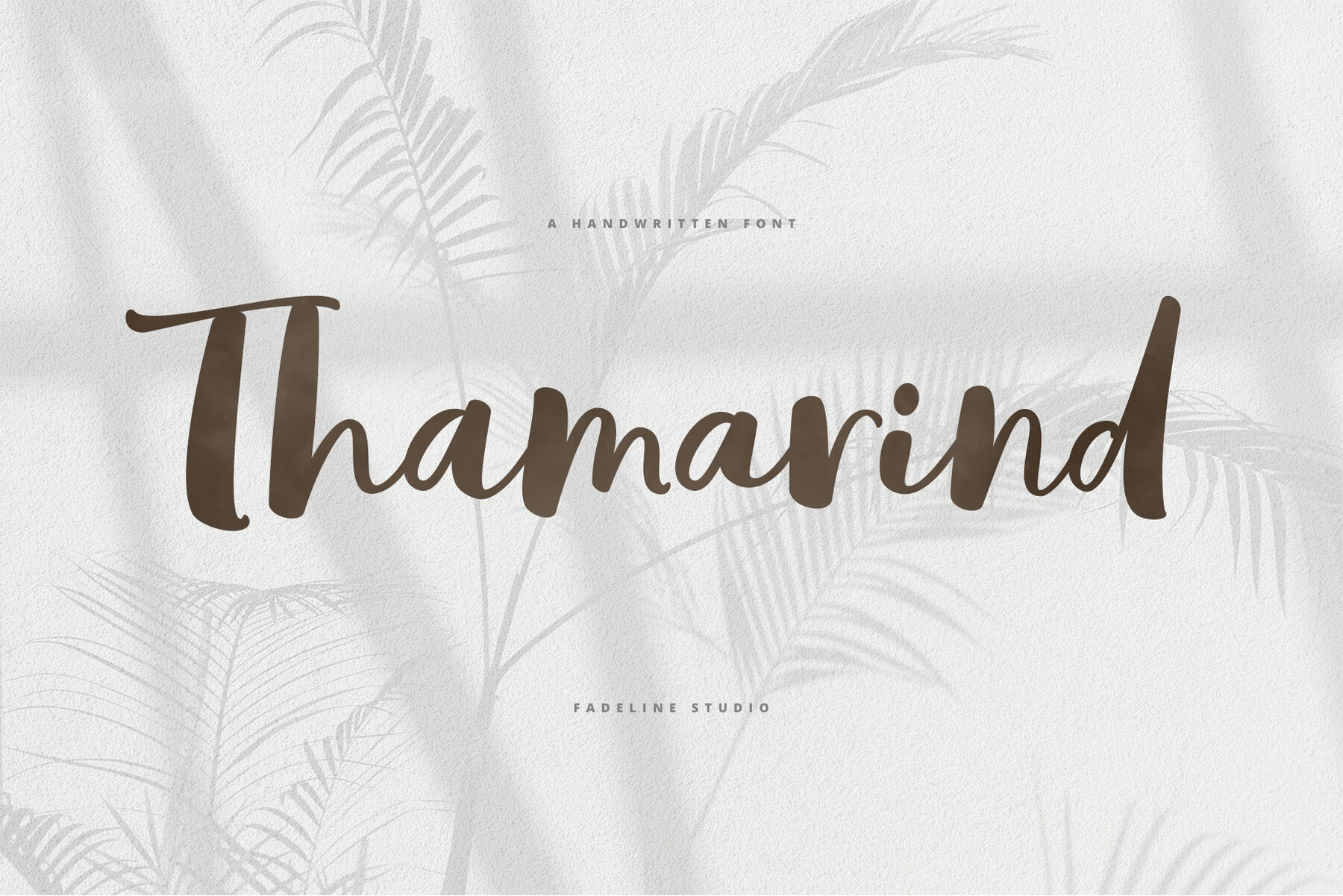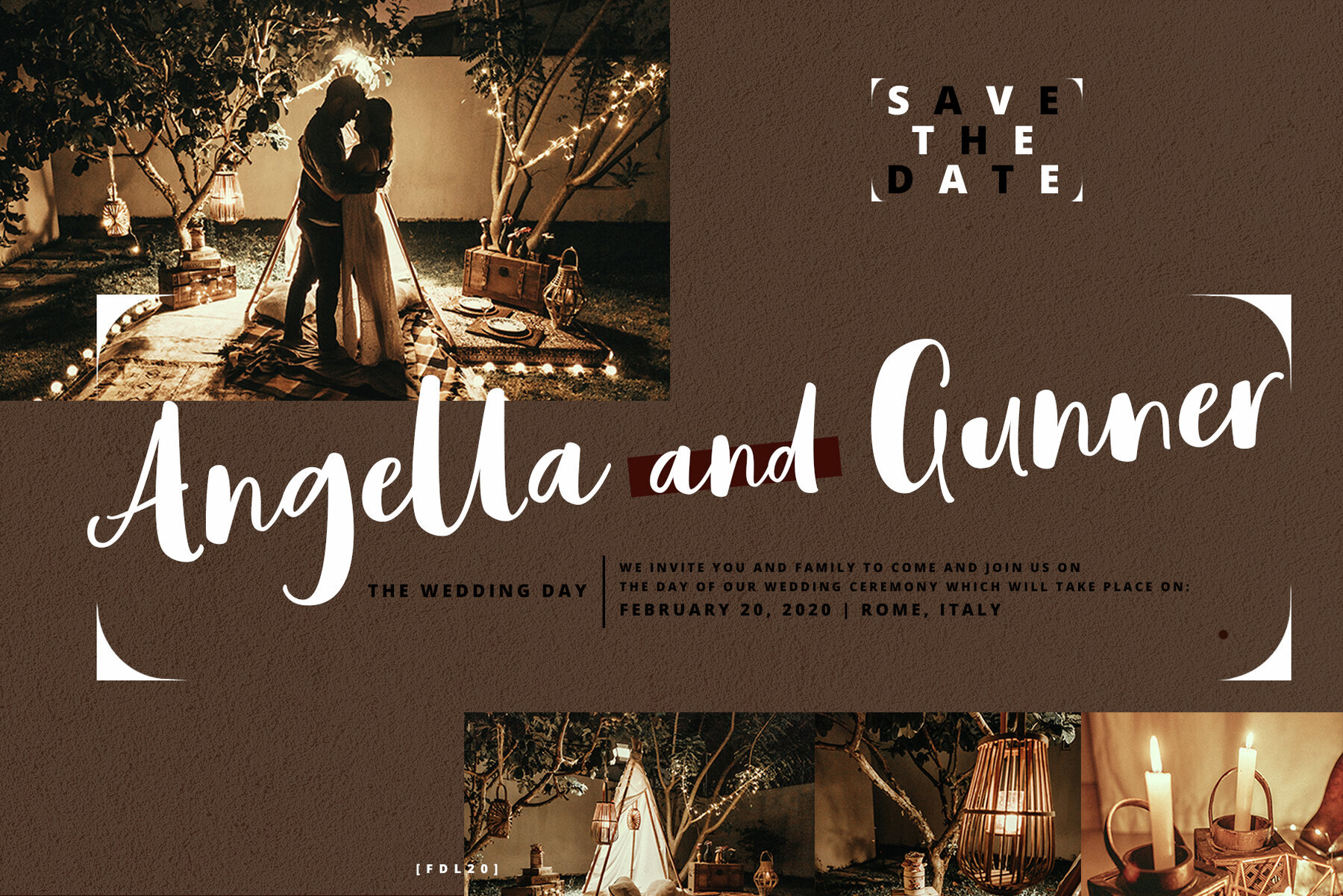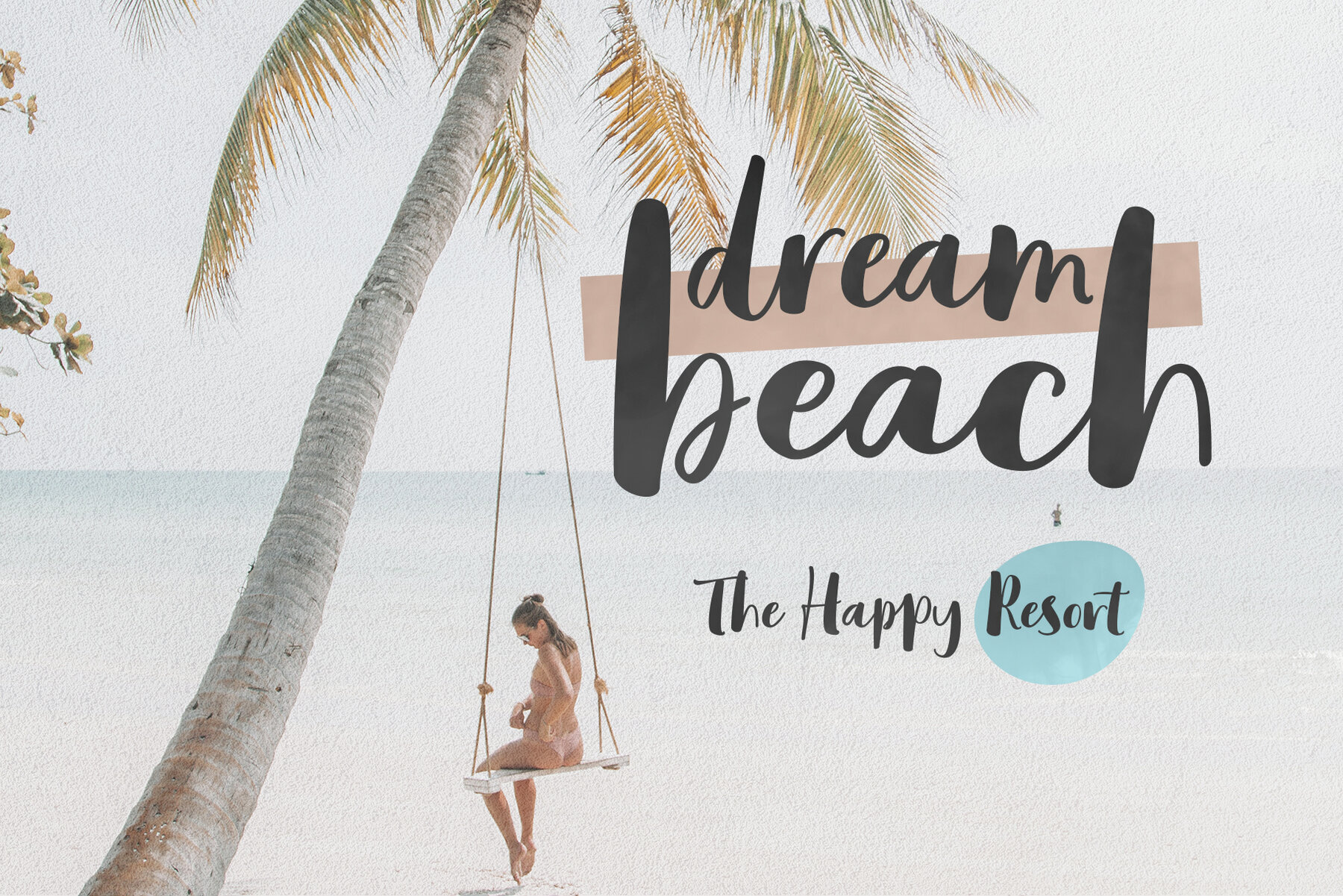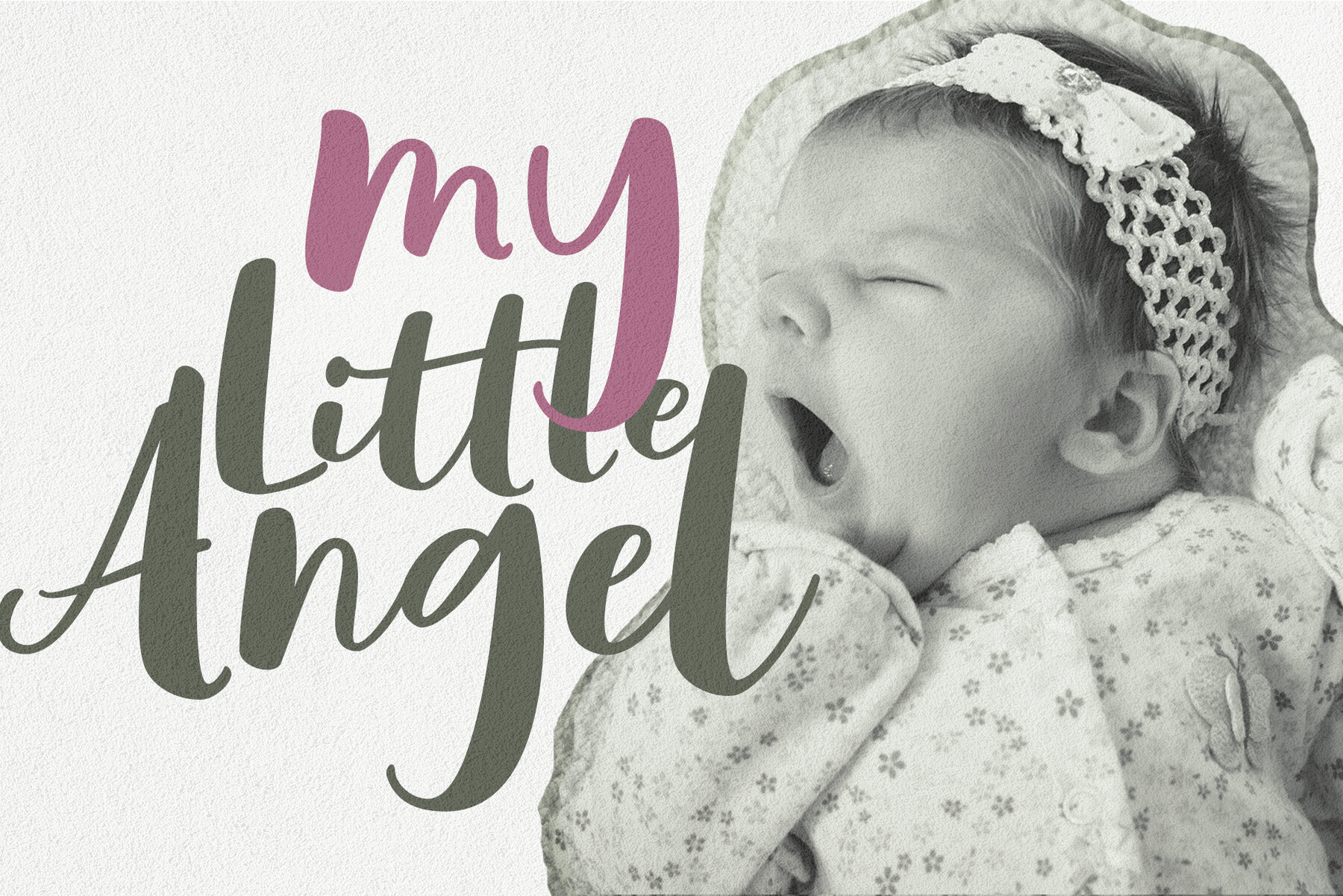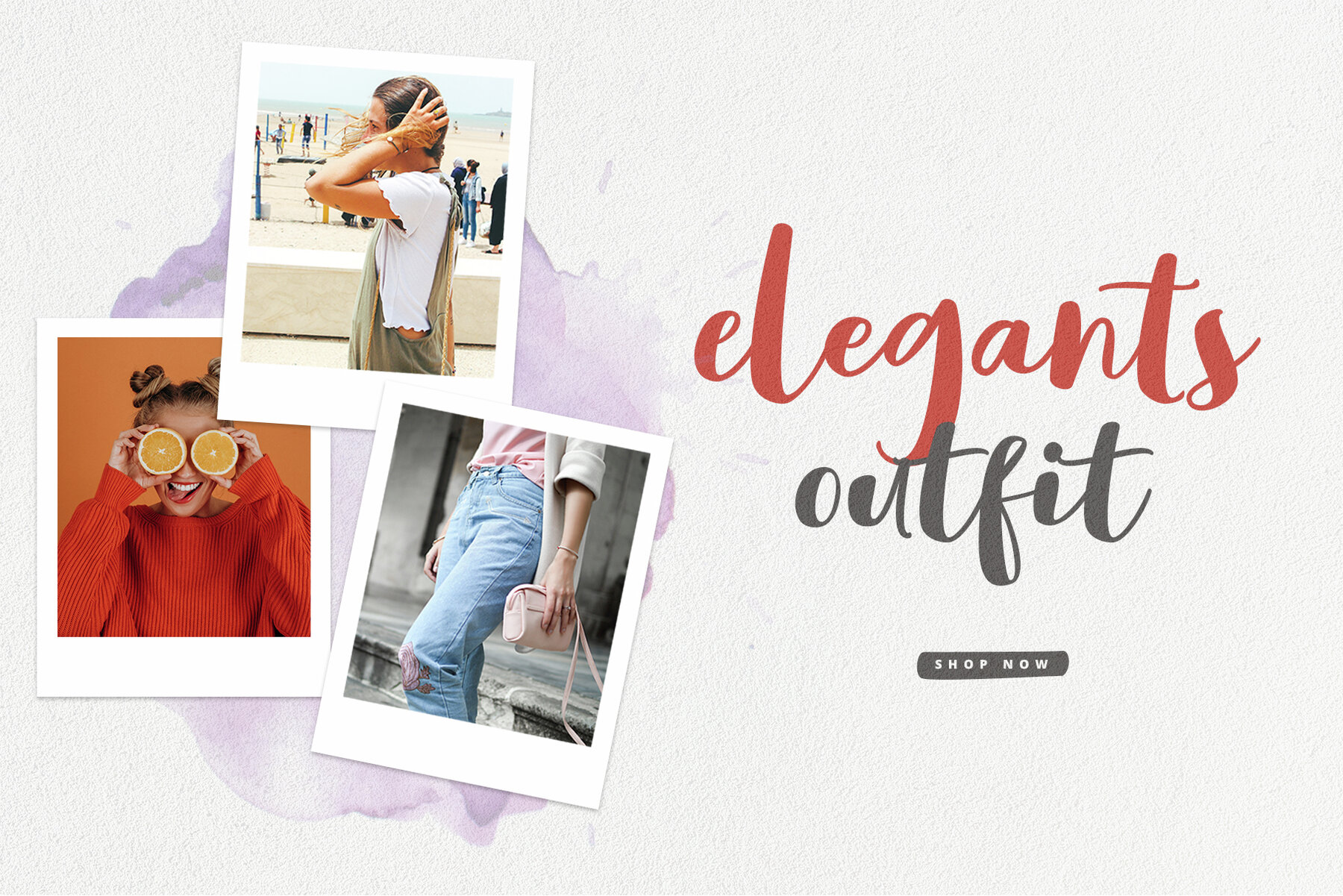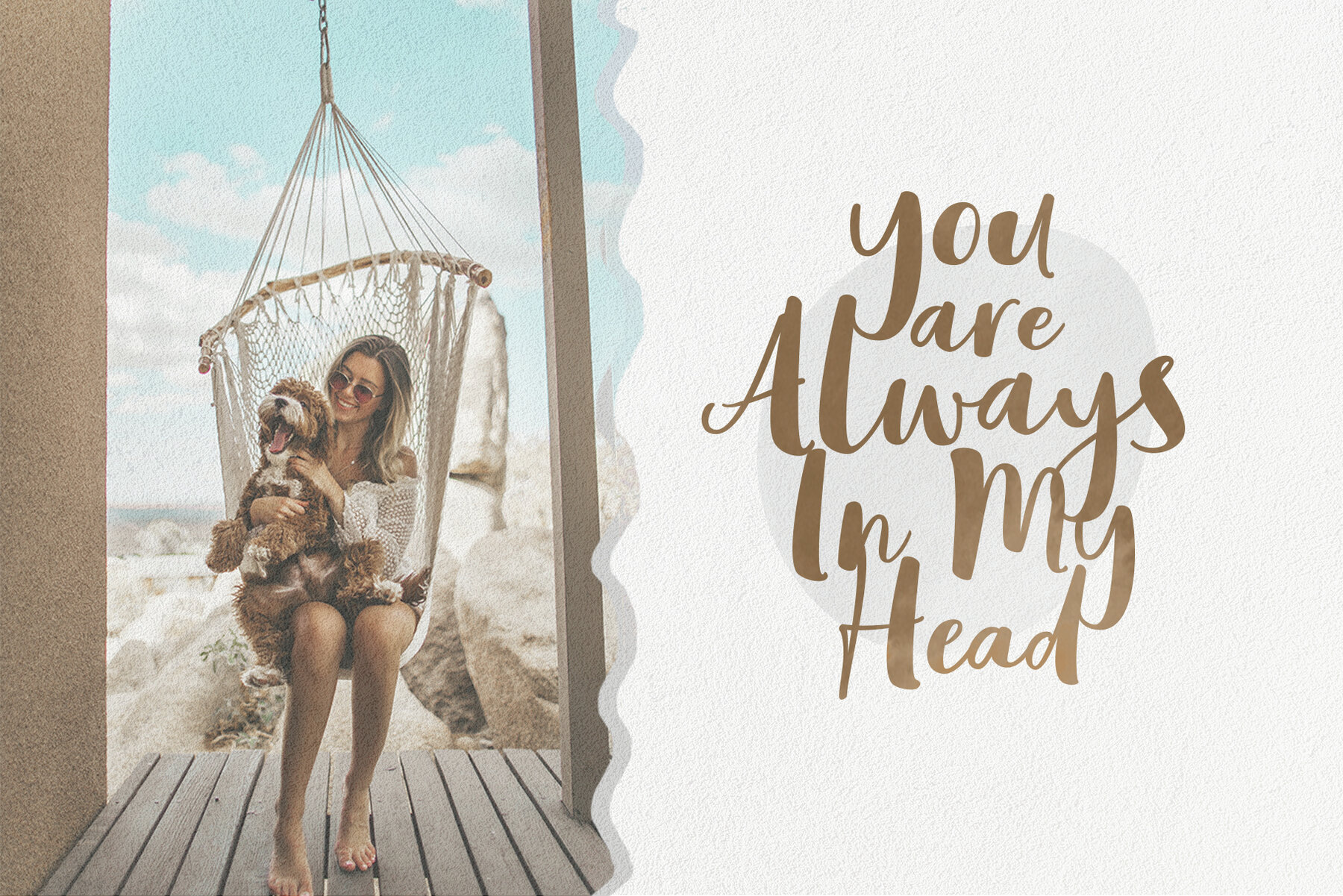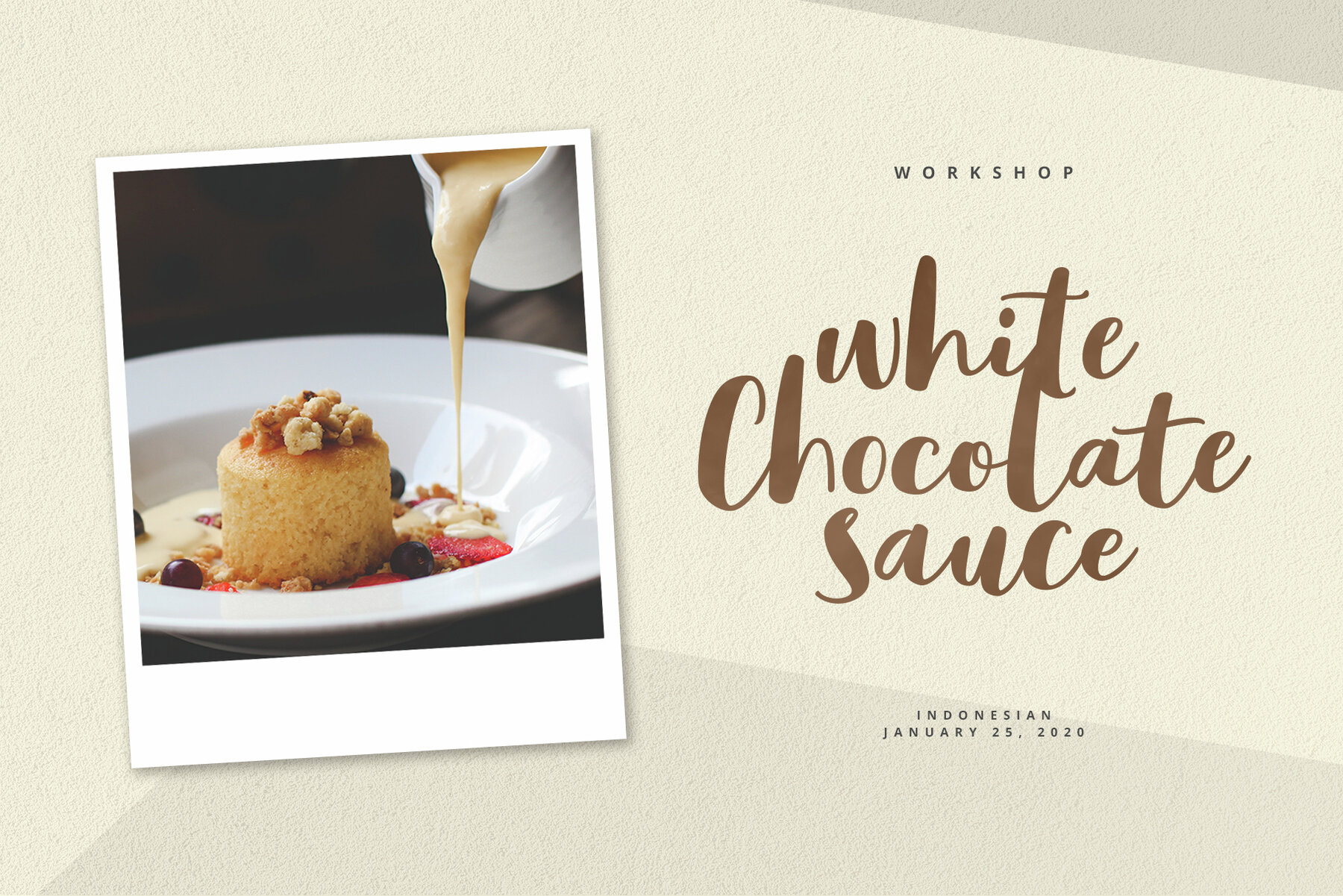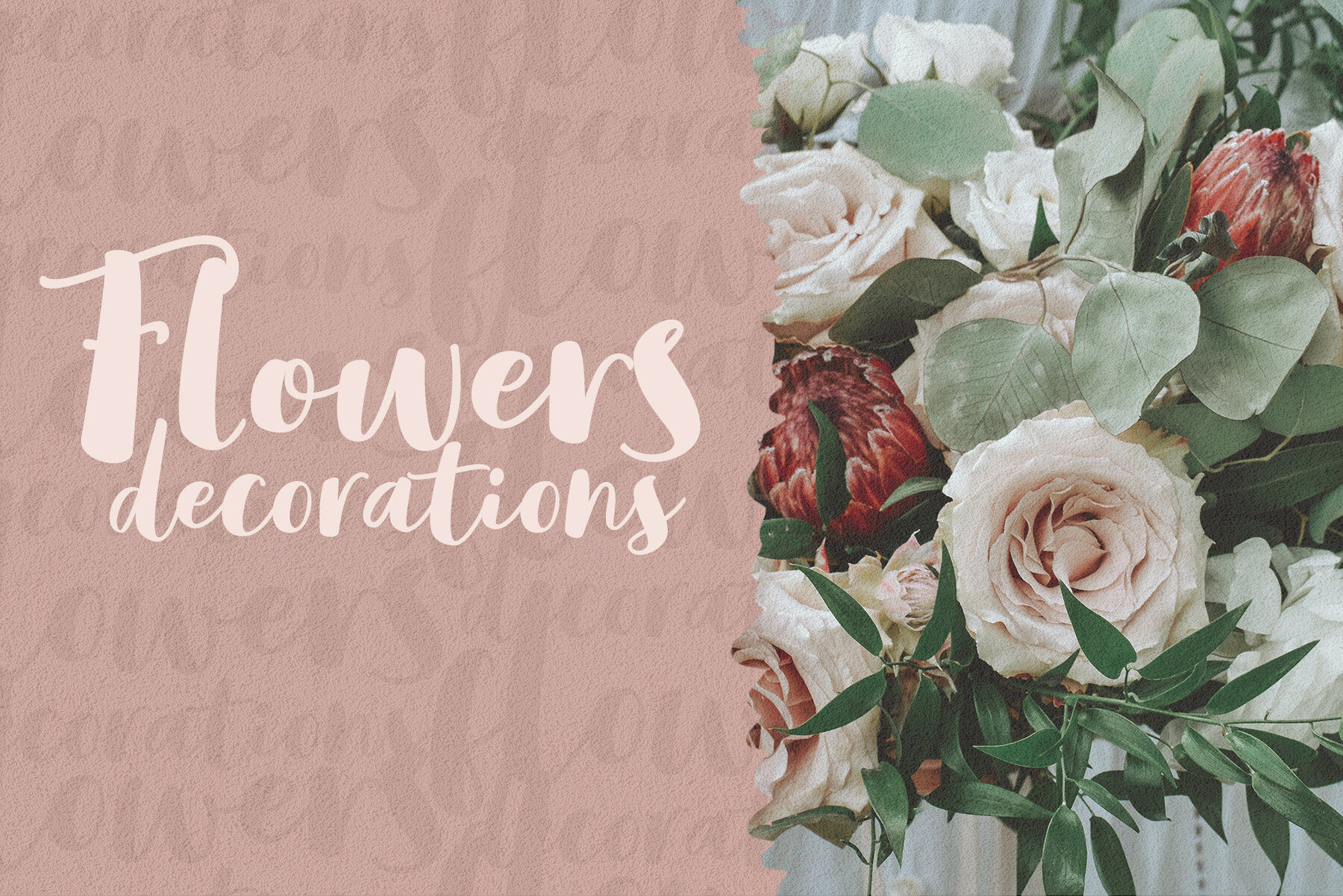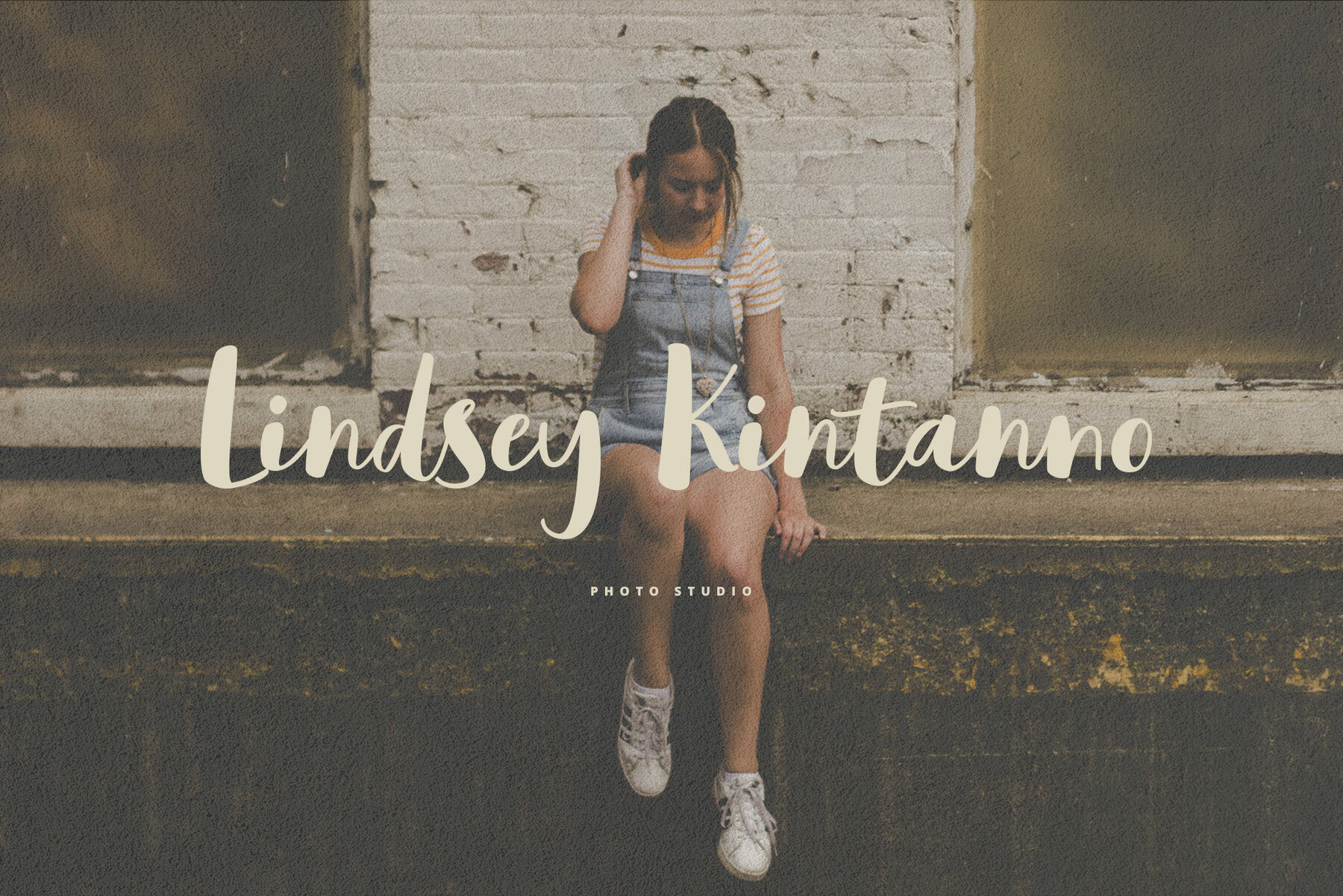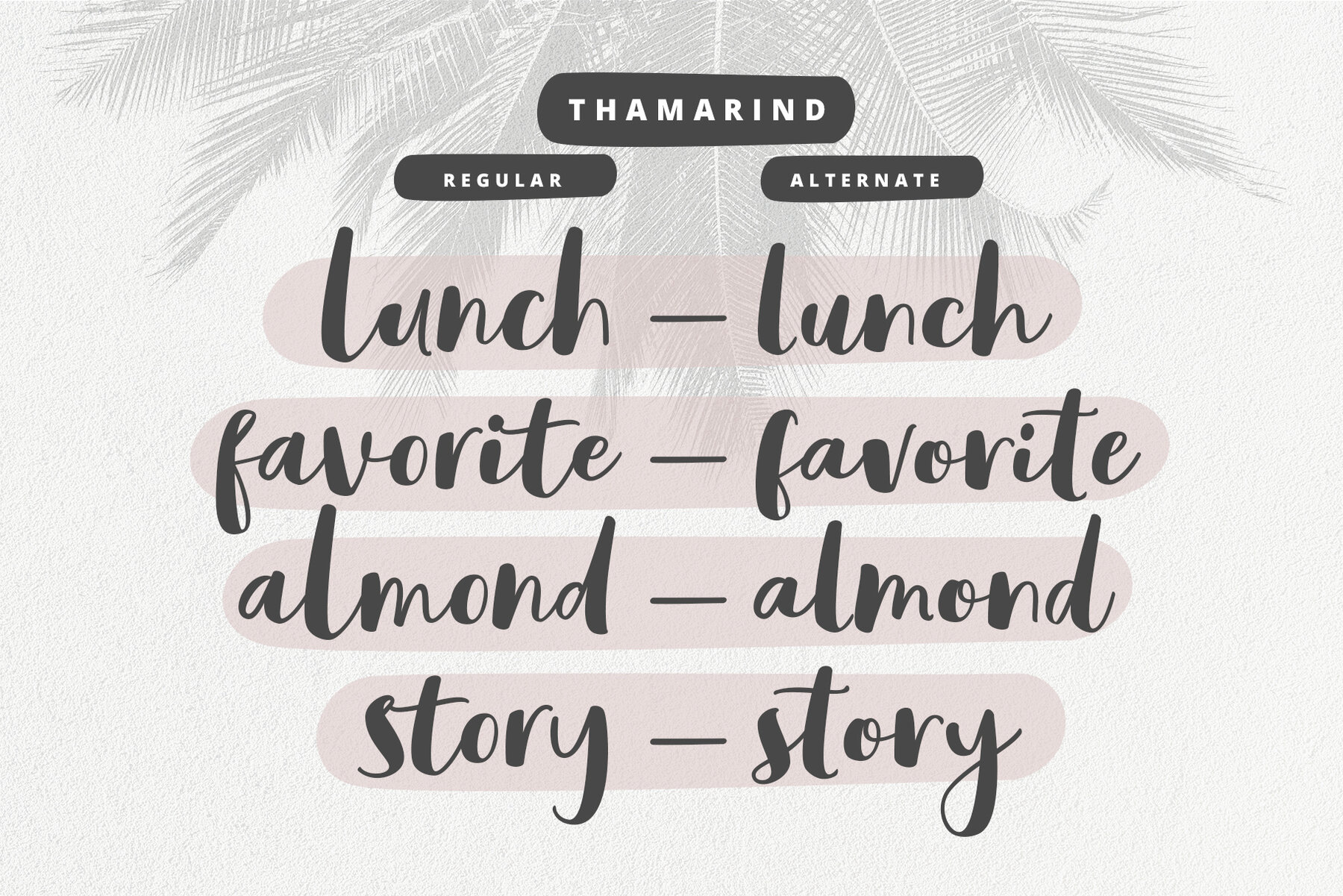
Thamarind Script Font
Thamarind Script
Unleash your creativity with Thamarind Script, a playful handwritten font that combines boldness with a trendy flair. Designed to elevate your design projects, Thamarind Script adds a touch of cuteness and firmness to any of your trendy endeavors. Ideal for comic art, logos, and branding projects, its unique style is the perfect fit for a wide array of uses.Discover Thamarind Script